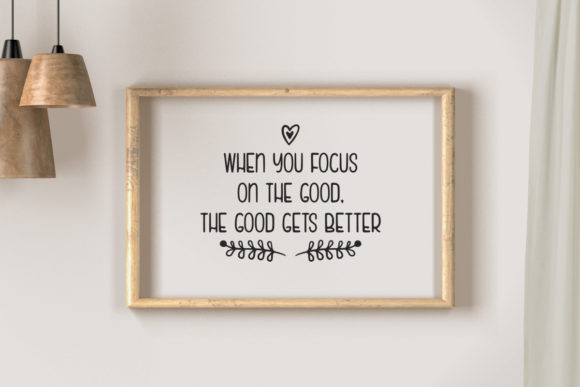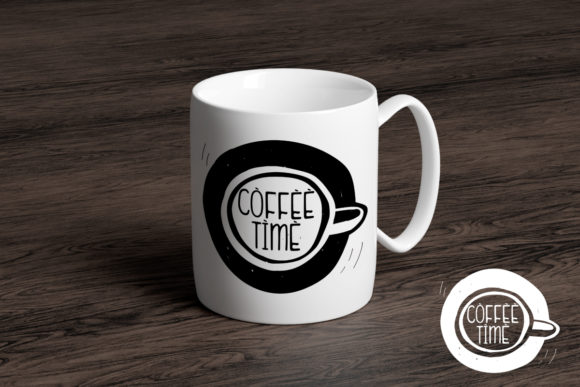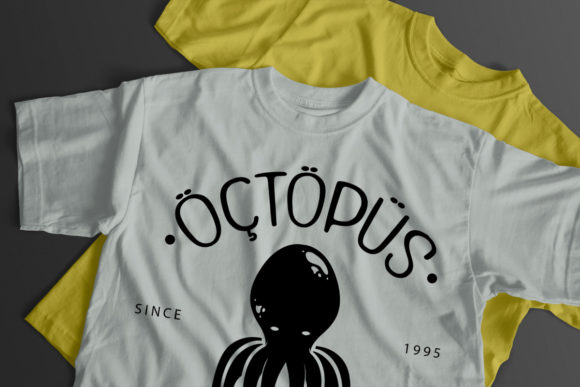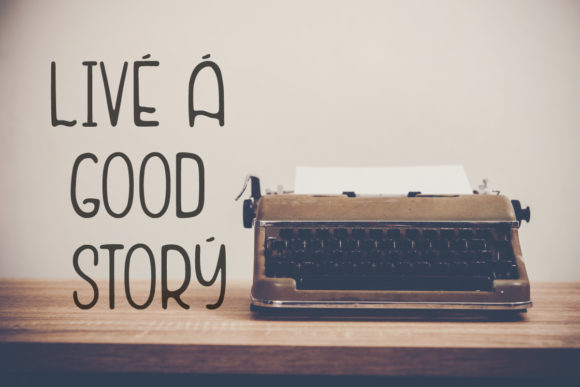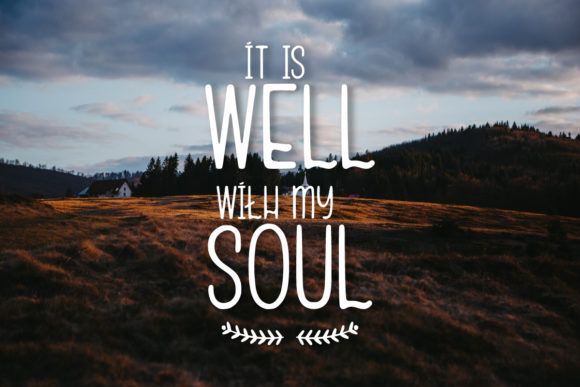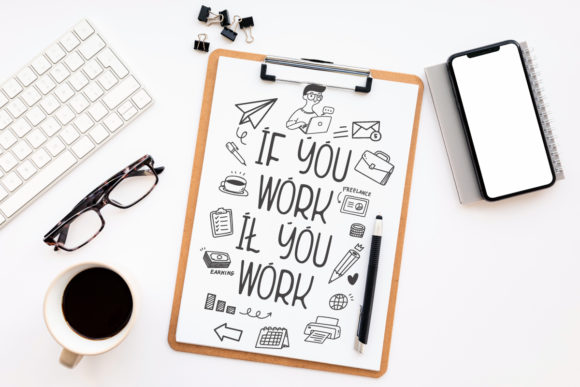
Introduction to Hello Pencile Font Font
Fonts play a crucial role in design, and the Hello Pencile Font font is a typeface that brings both character and versatility to any project. Whether you’re working on a branding project, a website, or a print design, the Hello Pencile Font font offers a unique style that can elevate your work.
Hello Pencile is a sweet, simple and tall lettered display font.
Its natural style makes it incredibly fitting to a large pool of designs The only limit is your imagination.
Key Features of Hello Pencile Font Font
Why Choose Hello Pencile Font Font?
The Hello Pencile Font font is more than just a typeface – it’s a design tool that helps you communicate your message with style and clarity. Its unique character set and versatile design make it suitable for a wide range of applications, from elegant invitations to bold headlines.
With its carefully crafted letterforms and balanced proportions, the Hello Pencile Font font ensures readability and visual appeal across all mediums.
What makes Hello Pencile Font font special?
The Hello Pencile Font font stands out with its unique design, exceptional readability, and versatility across various design applications.